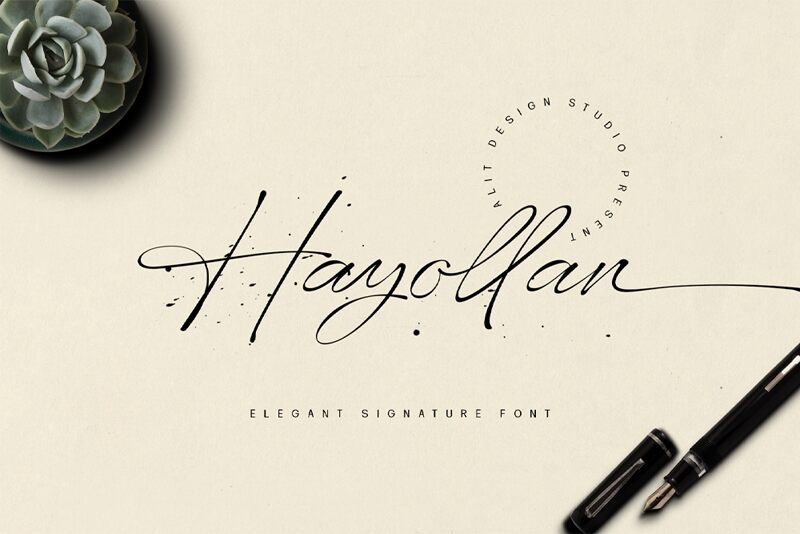
Hayollan, a captivating handwritten font crafted by Alit Design, exudes an effortless elegance and a touch of whimsical charm. The light, signature-inspired strokes convey a sense of personal expression, evoking a warm and inviting atmosphere. The fluid, interconnected letterforms create a harmonious flow, lending a distinctive flair to any design.
Hayollan's versatility shines through, making it a versatile choice for a wide range of design projects. From wedding invitations and branding materials to stationery and packaging, this font's unique character adds a touch of sophistication and individuality. Its adaptability allows designers to elevate their work, seamlessly blending the personal and the professional.
Hayollan